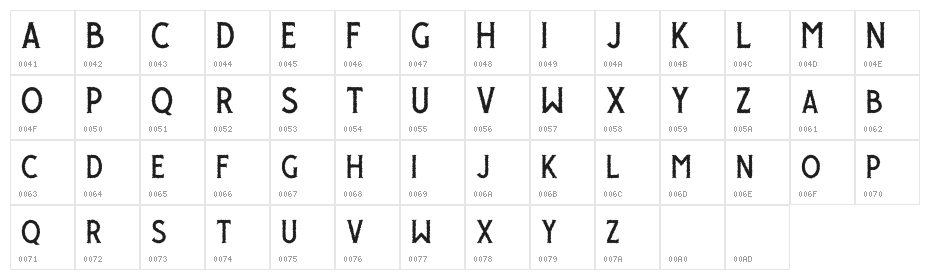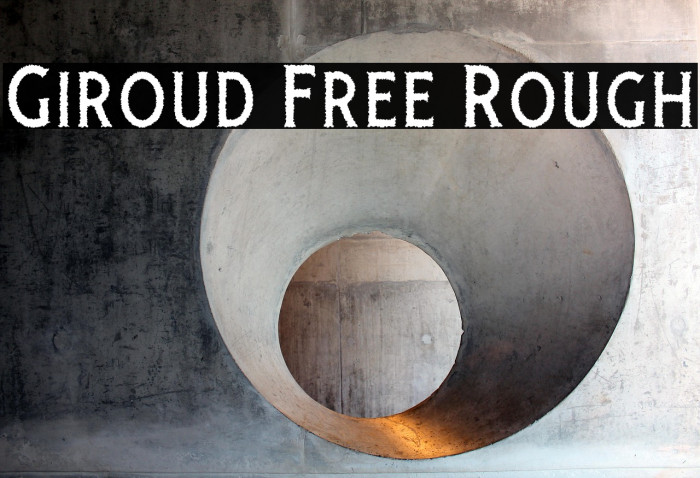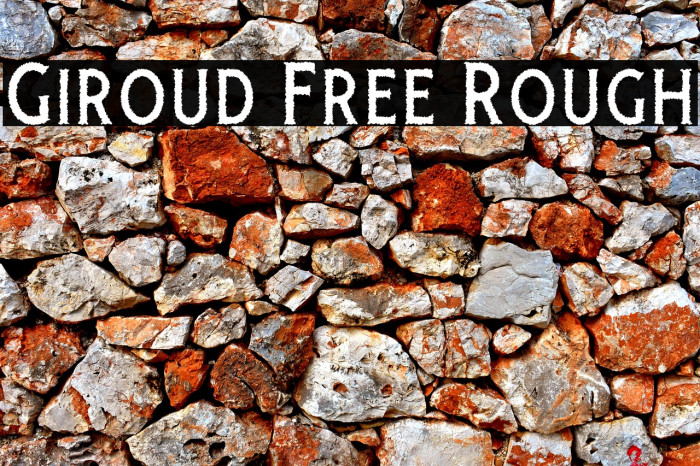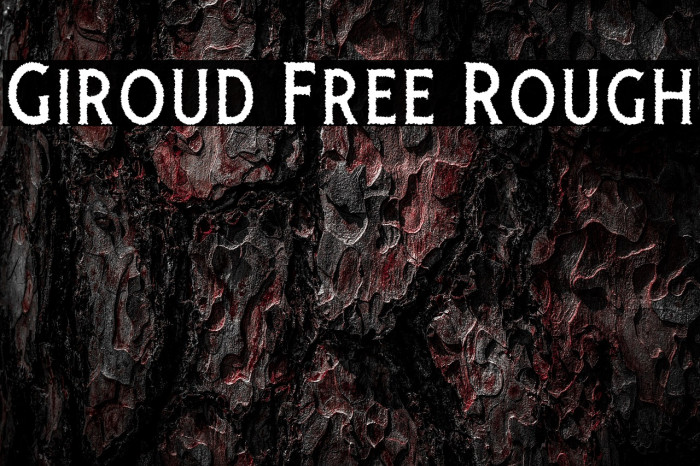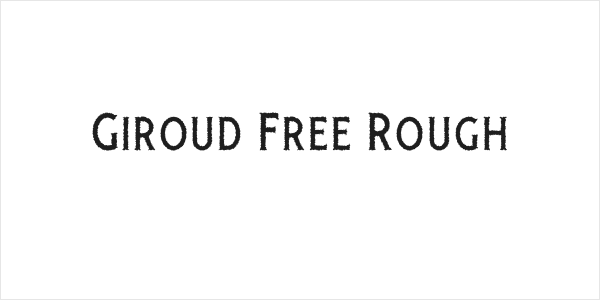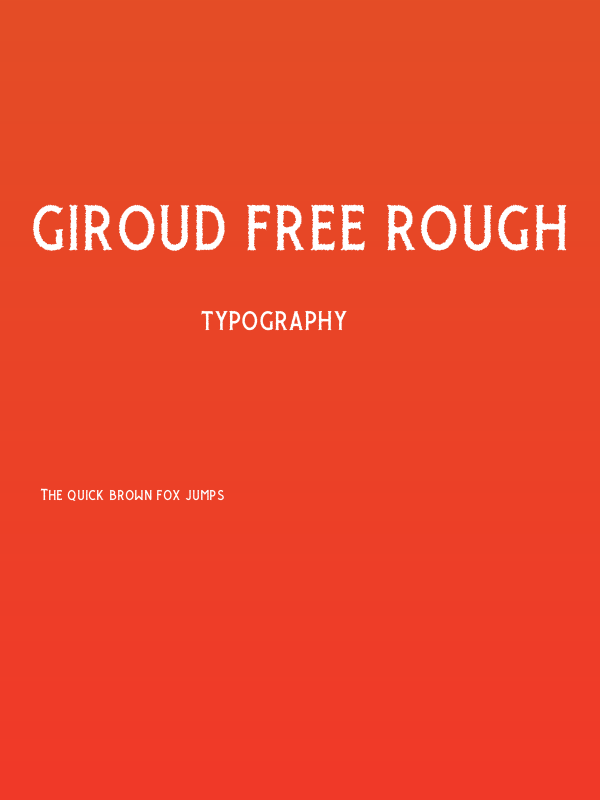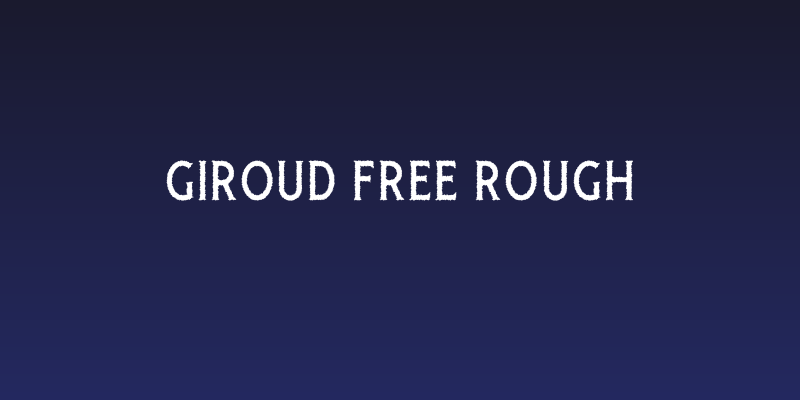
Giroud Free Rough Font
Giroud Free Rough Description
This font features a rough, textured appearance that gives it a hand-crafted, artisanal feel. The letters are bold and slightly irregular, with a distressed look that adds character and depth. The uppercase letters are consistent in height, while the lowercase letters maintain a uniform baseline, creating a balanced and cohesive appearance. The rough edges and uneven strokes contribute to its rustic charm, making it ideal for projects that require a vintage or handmade aesthetic. Its unique style is both eye-catching and versatile, suitable for a variety of creative applications.
| Overall Style | Vintage |
| Use Case | Logos, Headlines, Posters |
| Proposed Projects | Ideal for branding, packaging, posters, and any design requiring a vintage or artisanal touch. |